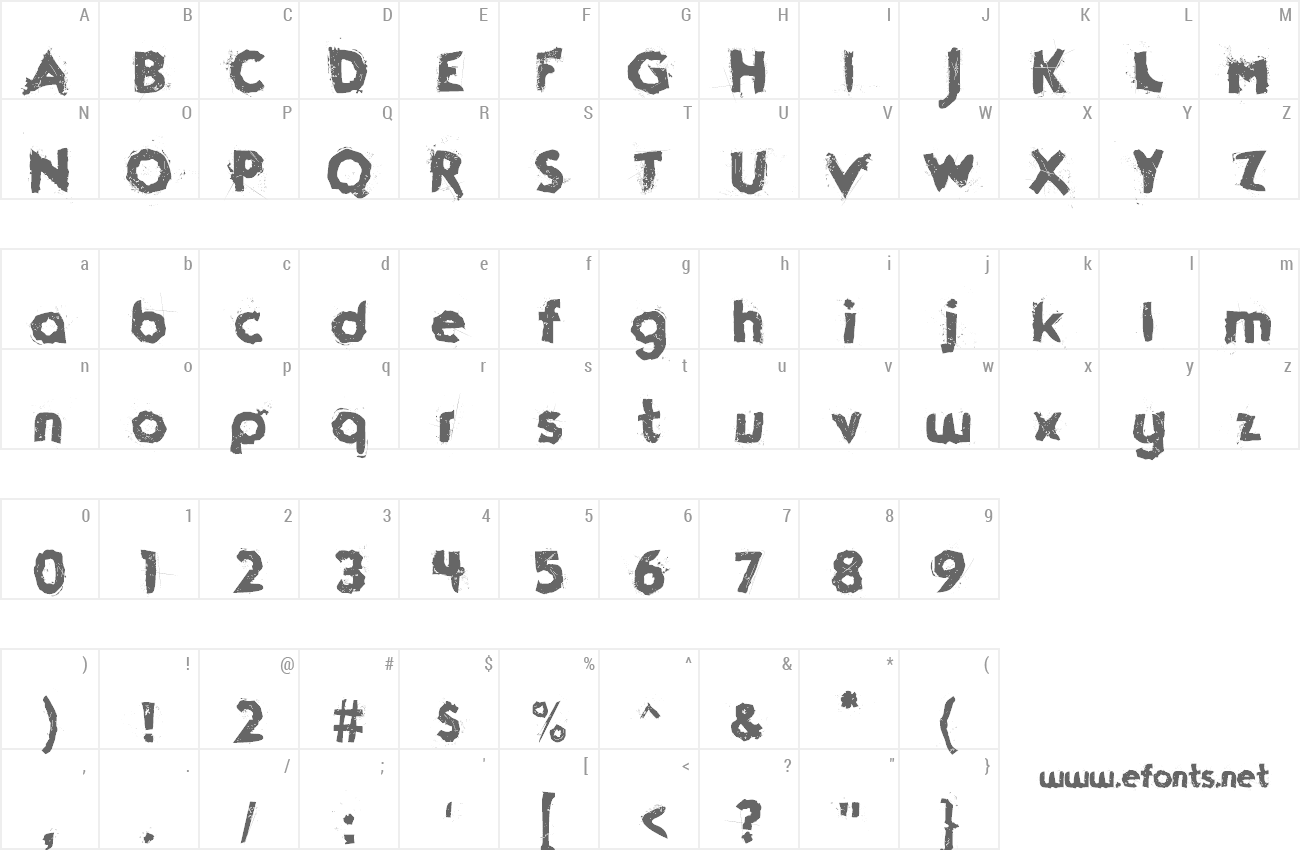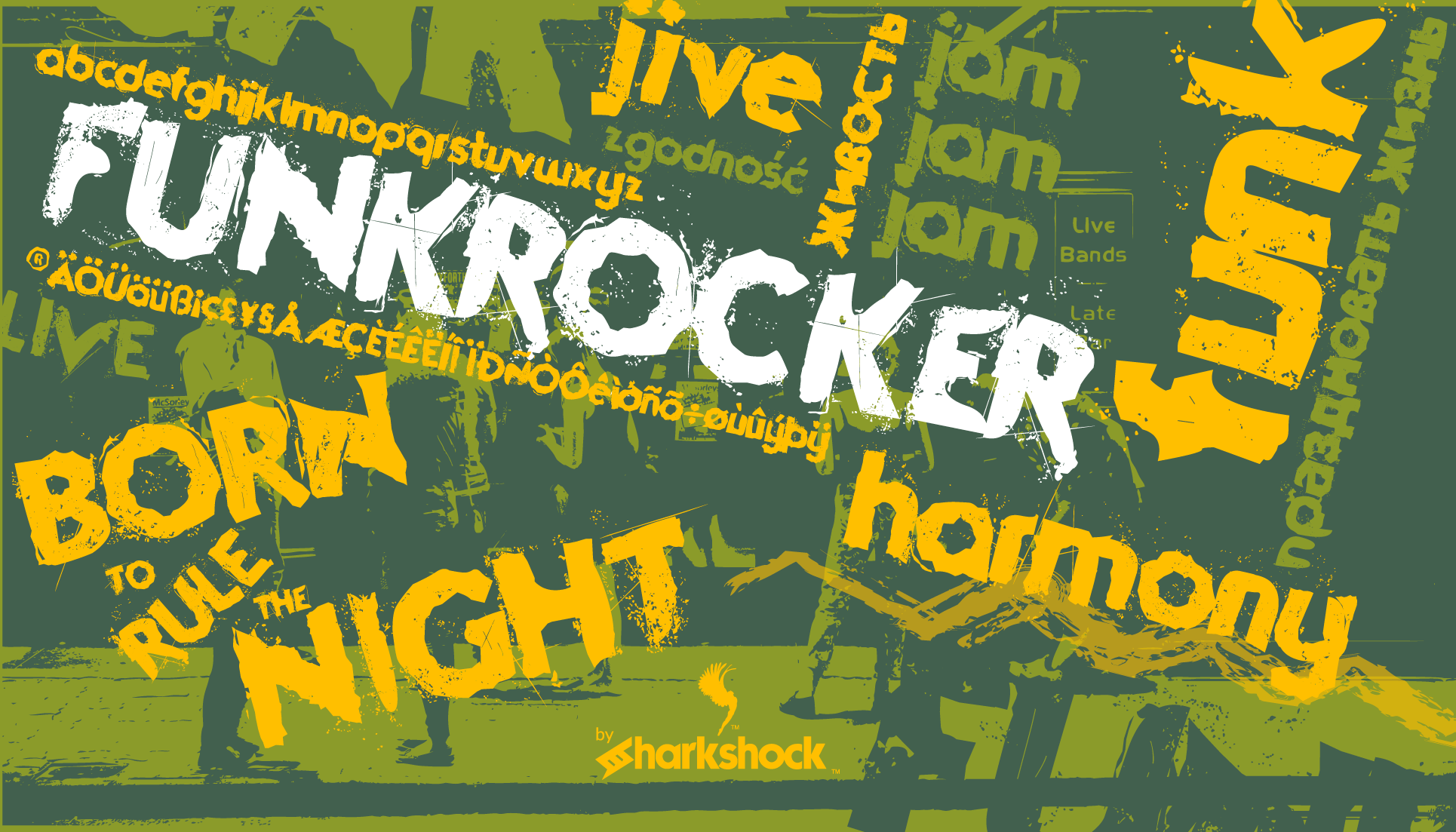
Preview and download Funkrocker Font. Created by Sharkshock in Fancy Destroy styles with Free for personal use license.
OTF and TTF: Funkrocker Dennis Ludlow 2015 all rights reserved by Sharkshock dennis@sharkshock.net OK people It's time to get FUNKY. Meet Funkrocker; a grunge inspired typeface guaranteed to add some flavor to your creative soup. The glyphs are "rough around the edges" yet easy on the eyes. This urban display font features basic latin, supplemental latin, punctuation, European accents, and Cyrillic characters for Russian and Ukranian. Alternate uppercase letters are available if your editing program supports OTF. Use Funkrocker for album art, titles, or a poster. This font like my others are free for personal use only as long as this readme file stays intact. For commercial use please contact me at dennis@sharkshock.net to discuss an end user license agreement. You can also visit www.sharkshock.net/license for more info. I also design custom fonts for businesses, logos, and many other things. If you'd like to leave me a PayPal donation you can use my email address above. Your generosity will be most appreciated! visit www.sharkshock.net for more and take a bite out of BORING design! |